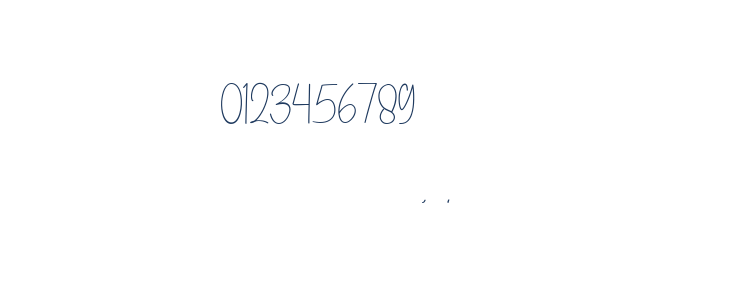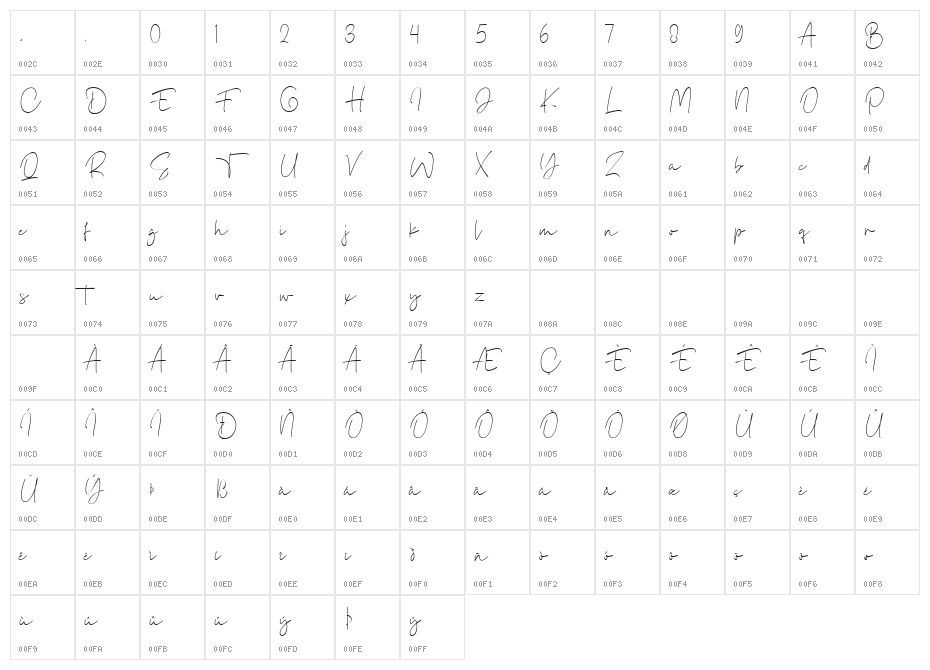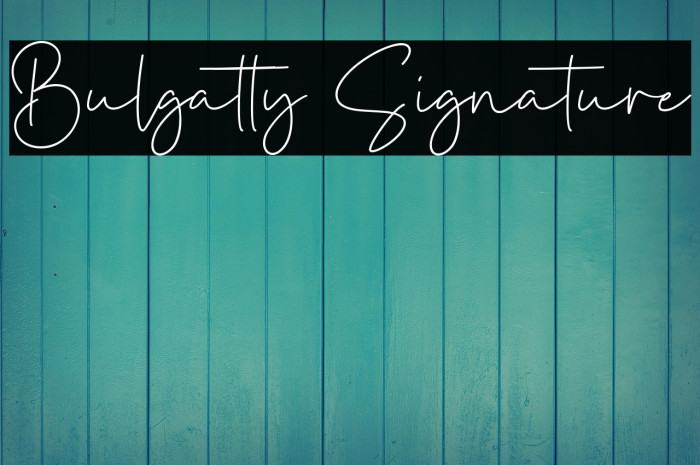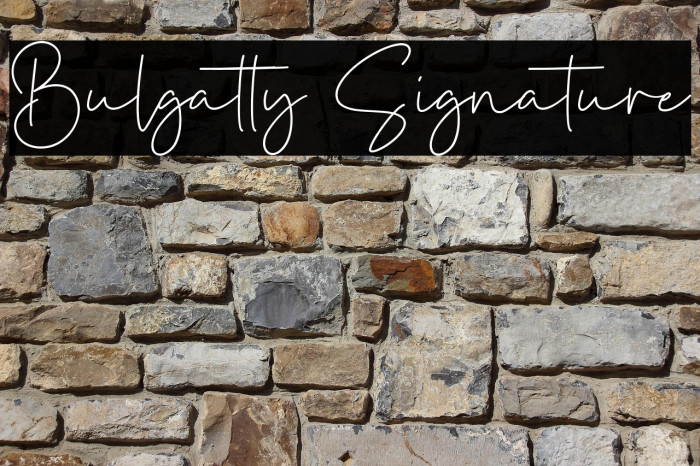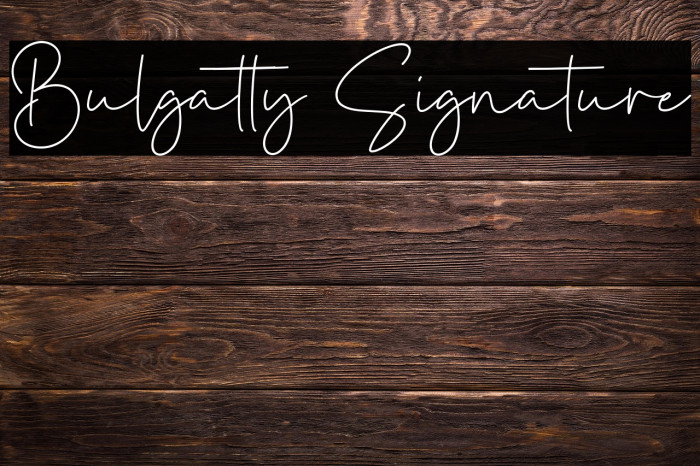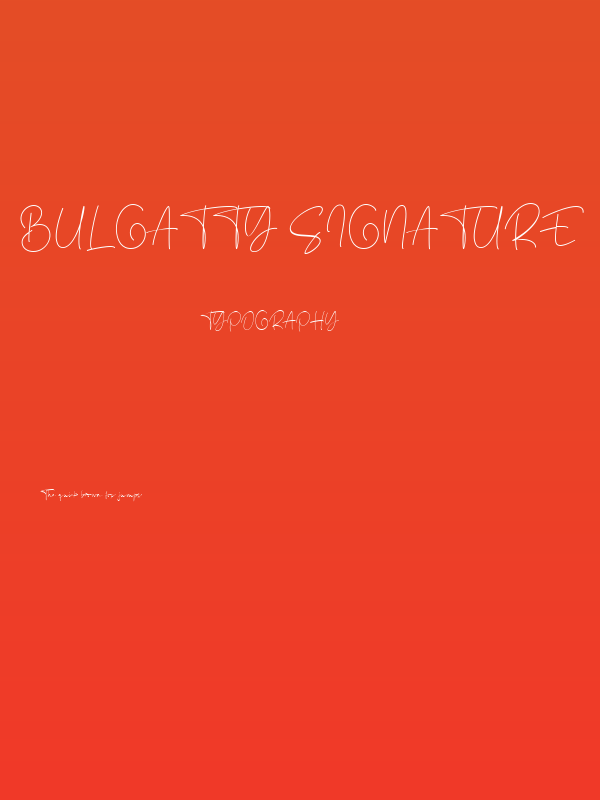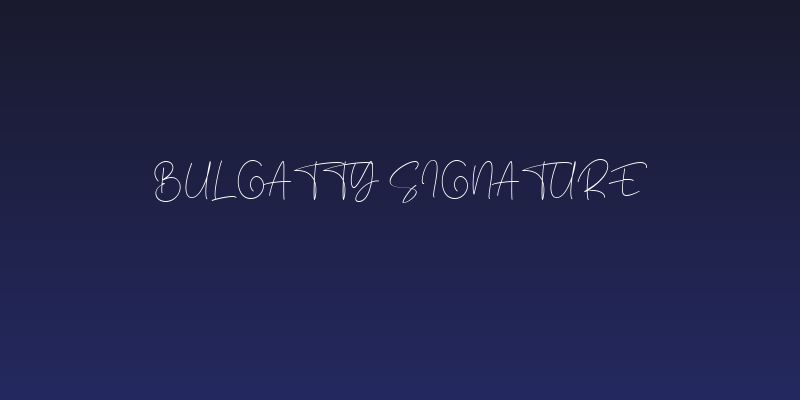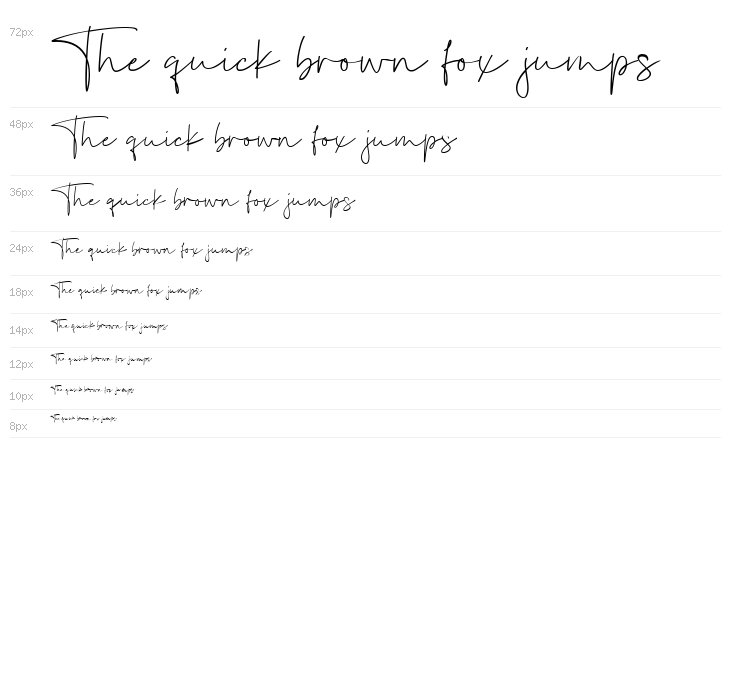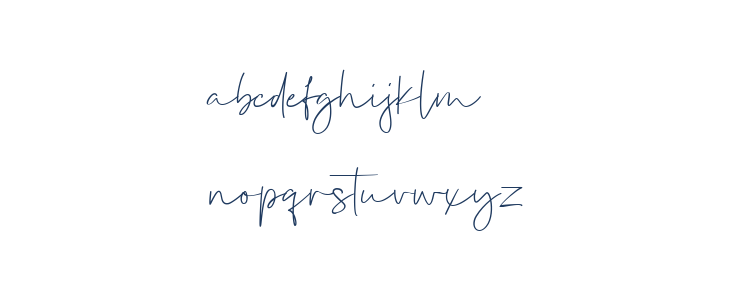
Bulgatty Signature Font
Bulgatty Signature Description
This font exudes a sophisticated and elegant handwritten style, characterized by its fluid and graceful strokes. The letters are connected in a cursive manner, giving it a seamless flow that mimics natural handwriting. The uppercase letters are slightly more elaborate, with some featuring unique loops and swirls, while the lowercase letters maintain a consistent and smooth appearance. The numerals are clear and legible, maintaining the same elegant style as the letters. Special characters are included, adding versatility to the font. Overall, this font is perfect for projects that require a personal and refined touch.
| Overall Style | Elegant |
| Use Case | Logos, Invitations, Personal Branding |
| Proposed Projects | Ideal for wedding invitations, personal branding, elegant stationery, and signature logos. |